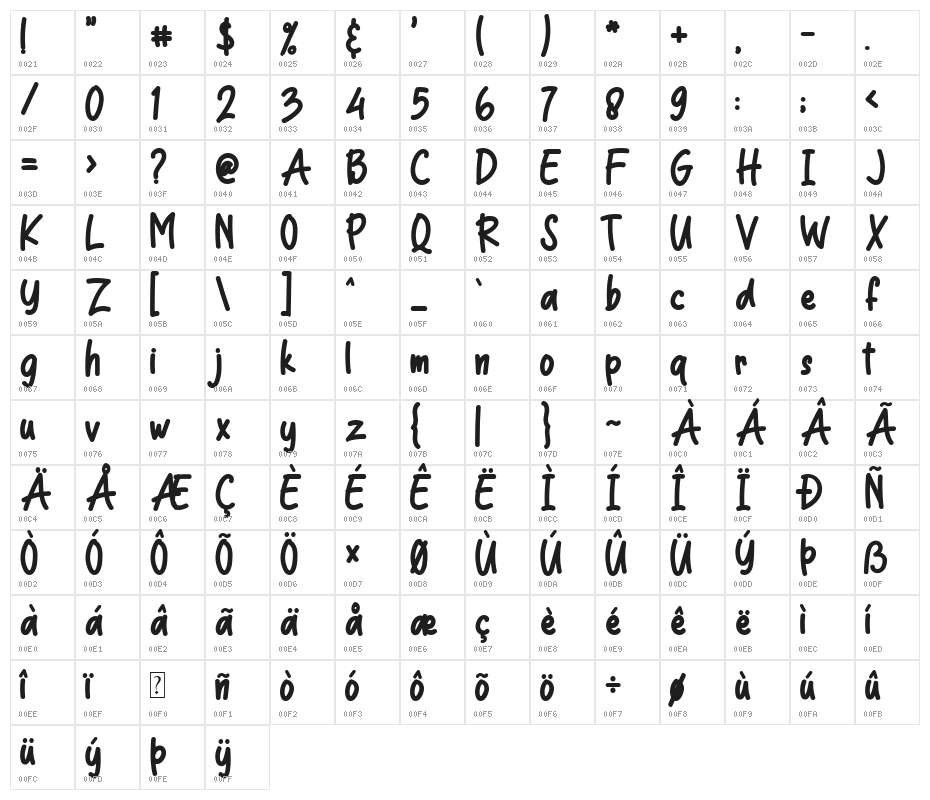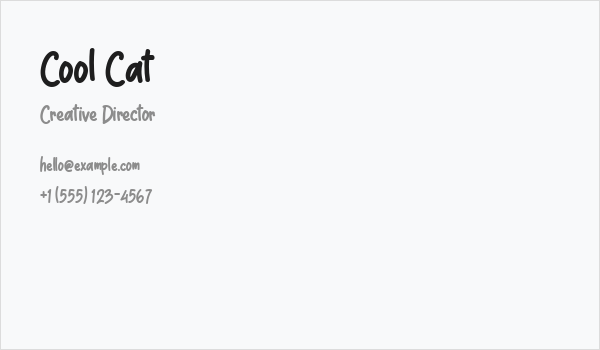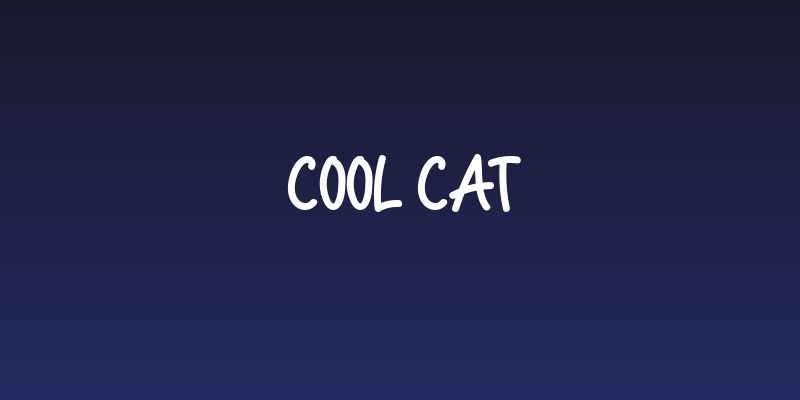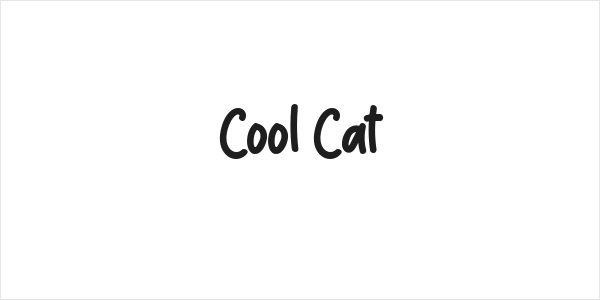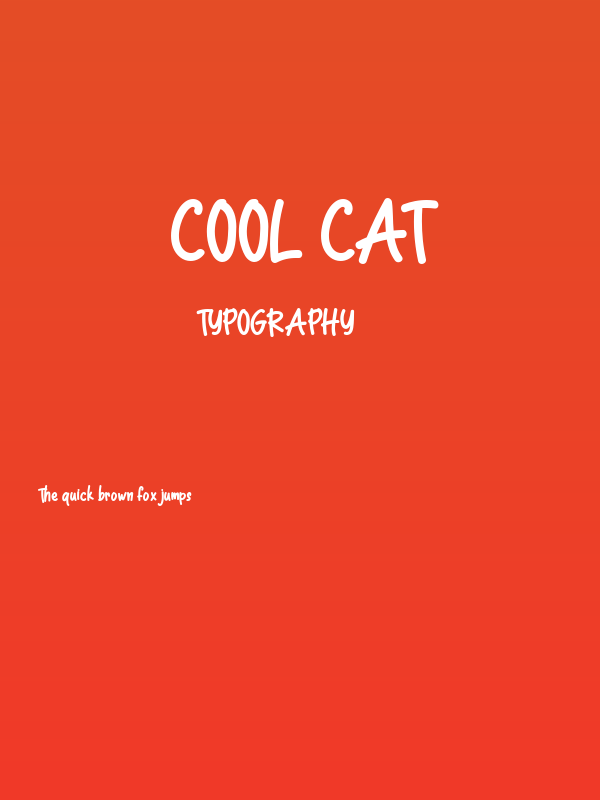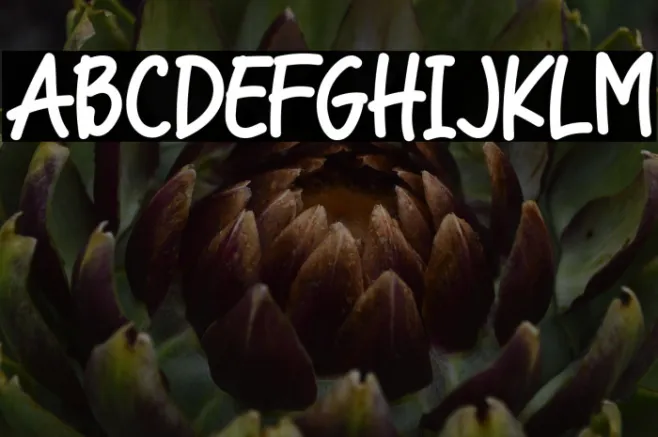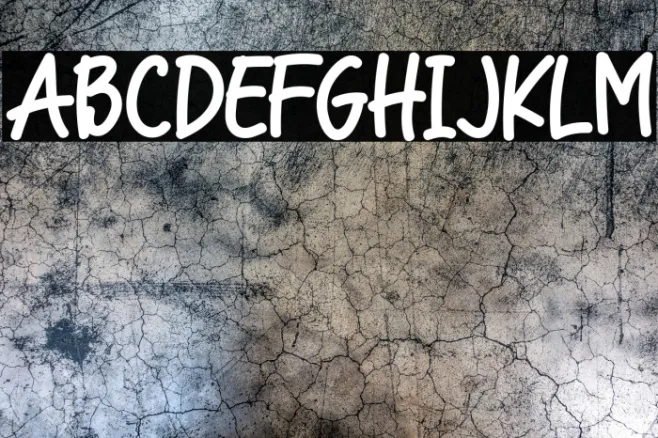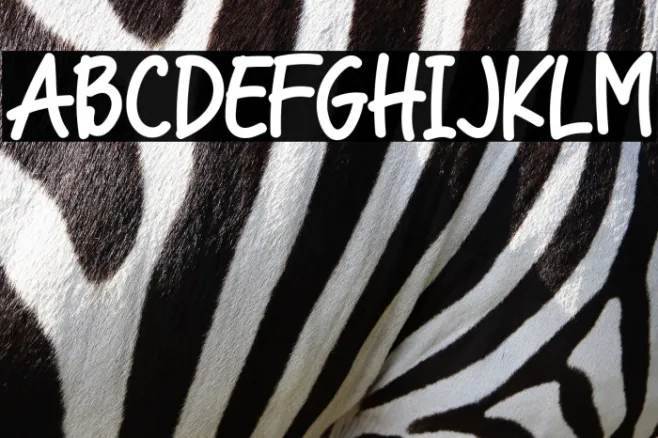
Cool Cat Font
Cool Cat Description
This playful and energetic font features a handwritten style with bold, rounded strokes that give it a friendly and approachable appearance. The characters are slightly irregular, adding to its casual and informal vibe. The uppercase and lowercase letters maintain a consistent style, with a slight slant that enhances its dynamic look. Numbers and special characters are designed to match the overall aesthetic, ensuring a cohesive appearance across all text elements. This font is ideal for projects that require a touch of personality and fun.
| Proposed Projects | Perfect for children's books, playful branding, greeting cards, and social media graphics. |